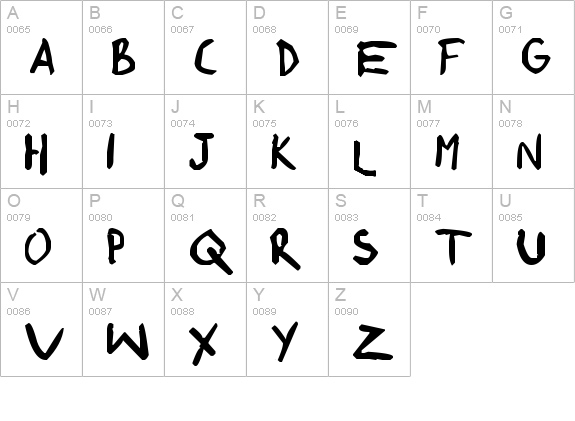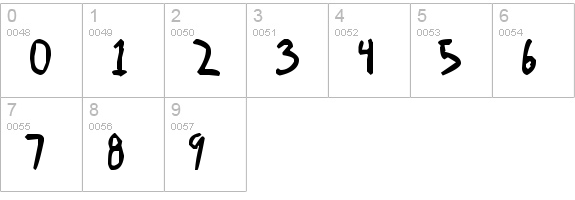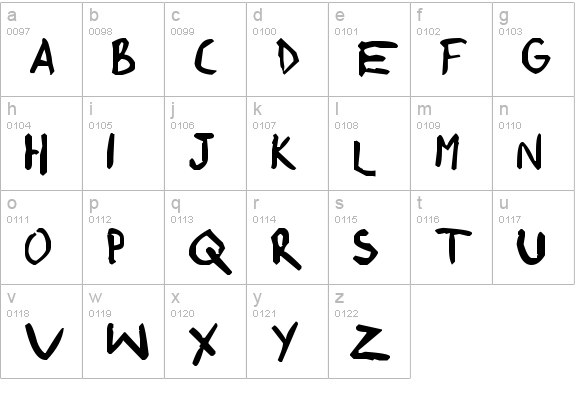
Shonen Punk! custom font is a bold and dynamic typeface that exudes energy and attitude. Inspired by the vibrant aesthetics of Japanese shonen manga and the rebellious spirit of punk rock, this font is perfect for projects that demand a bold and edgy look. With its sharp angles and bold lines, Shonen Punk! custom font commands attention and makes a powerful statement. This unique font is not only visually striking but also versatile, making it suitable for a wide range of design projects including posters, album covers, comic books, and more. Its bold and expressive style adds a touch of rebelliousness and excitement to any design. Best of all, Shonen Punk! custom font is available for free download at FontsMarket.com. Whether you're a designer looking to add some edge to your projects or a creator in search of a unique typeface, Shonen Punk! custom font is the perfect choice. Download it today and unleash your creativity with this bold and dynamic font.